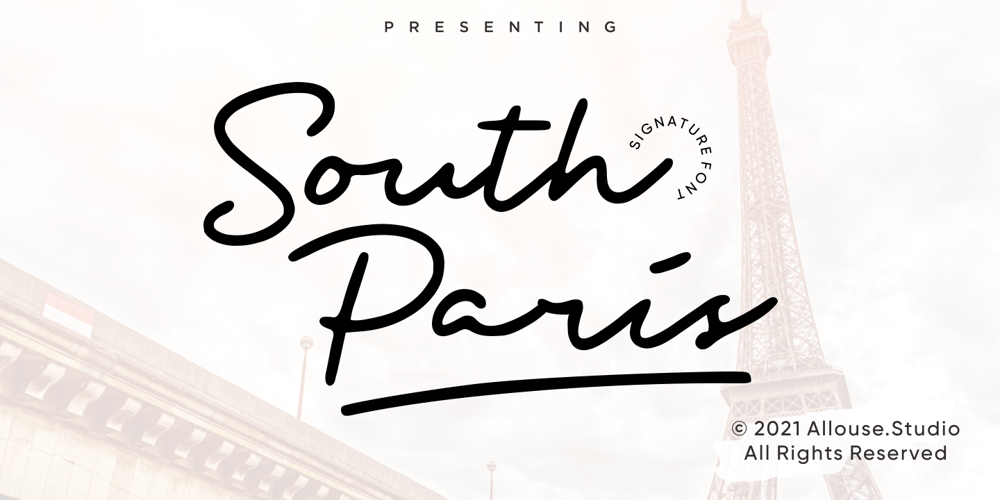
South Paris Font Family was designed by Fachrizal Yusuf and published by Allouse Studio. South Paris contains 1 styles and family package options. South Paris a Signature Font that will bring an luxury impression for you.South Paris is perfect for product packaging, branding project, megazine, social media, wedding, or just used to express words above the background.South Paris come with many underline styles, also come with Multi-Lingual Support.We highly recommend using a program that supports OpenType features and Glyphs panels like many of Adobe apps and Corel Draw, so you can see and access all Glyph variations.